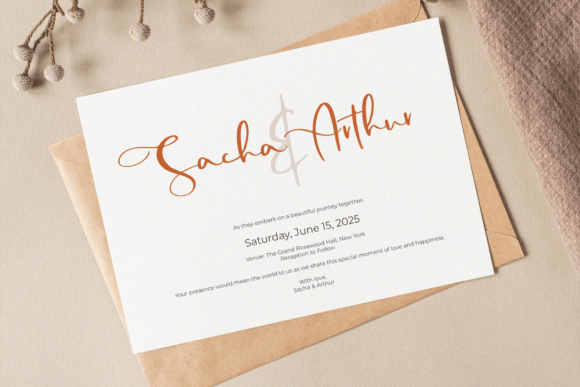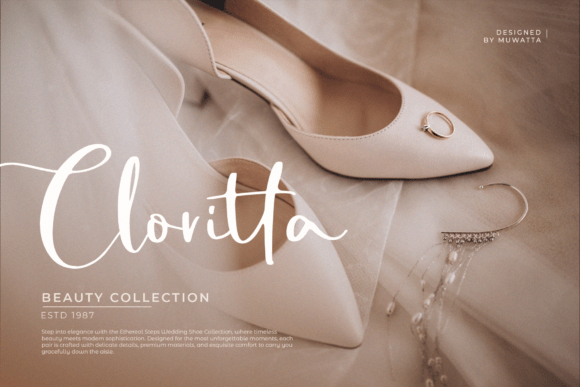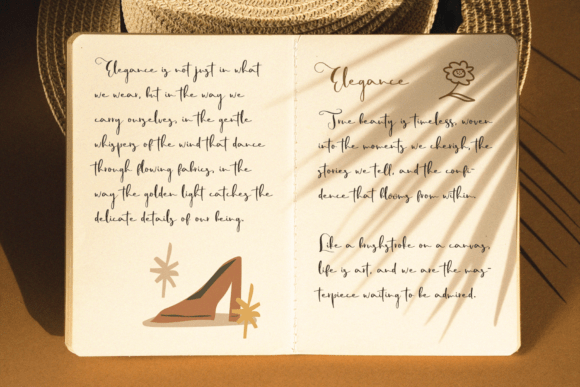
Introduction to Maghenta Font
Enter a world of whimsy with Maghenta, a whimsical font that captivates with every stroke.
Designed with a touch of magic and unique character, Maghenta brings the feel of a fairy tale to life in letterformsβ€”vivid, flowing, and full of personality .
Key Features of Maghenta Font